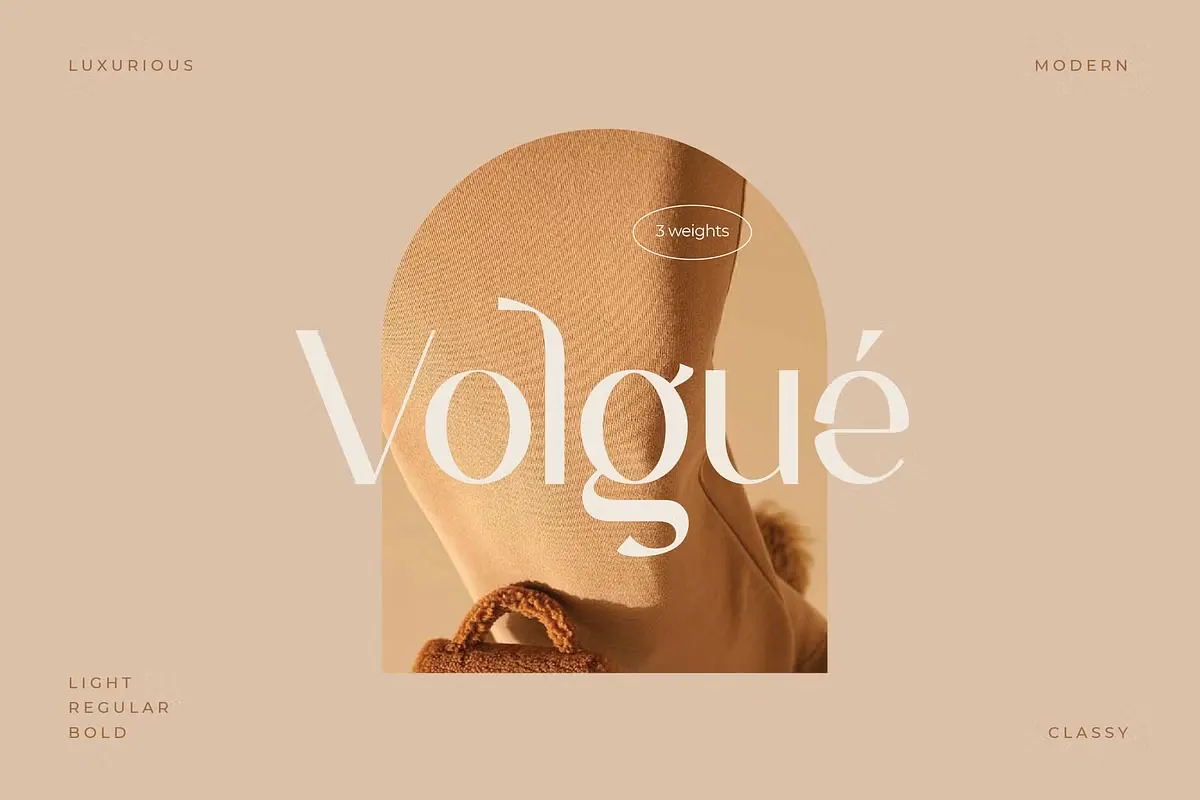
Volgue has a modern classic style with beautiful ligatures and smooth curves, ornaments, alternative glyphs and multilingual support. This font works great at both large and small sizes and makes an excellent addition to branding projects such as logo design, clothing branding, product packaging or magazine headers.
Volgue Chic Modern Typeface